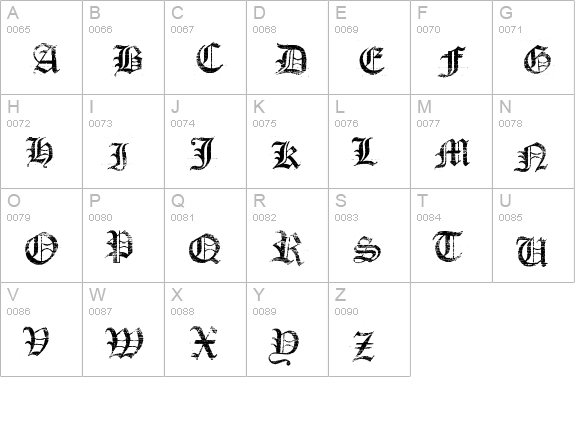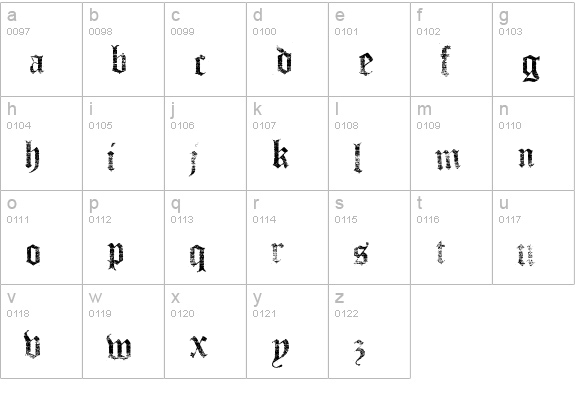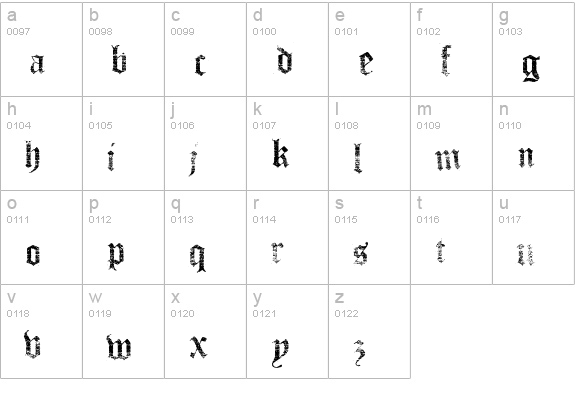
Faith Collapsing Font Details
Faith Collapsing font is a stunning and unique typeface that will captivate your audience with its modern and edgy design. This font is a perfect blend of elegance and boldness, making it suitable for a wide range of projects, including logos, branding, posters, and more. With its intricate details and carefully crafted letterforms, Faith Collapsing font adds a touch of sophistication to any design. Its sharp lines and sleek curves create a sense of dynamism and movement, making your text stand out and leaving a lasting impression. But what makes Faith Collapsing font even more desirable is the fact that it is freely available to download at FontsMarket.com. Yes, you heard it right - this incredible font can be yours without spending a dime. Whether you are a professional designer or a hobbyist, you can access this font and enhance your creations with its unique aesthetic. Faith Collapsing font is not just visually appealing, but it is also versatile. It comes with a wide range of characters, including uppercase, lowercase, numerals, symbols, and punctuation marks. This allows you to experiment and customize your text, giving you the freedom to create something truly exceptional. So why wait? Head over to FontsMarket.com now and grab your free download of Faith Collapsing font. Let your designs shine with this remarkable typeface and elevate your creative projects to the next level.